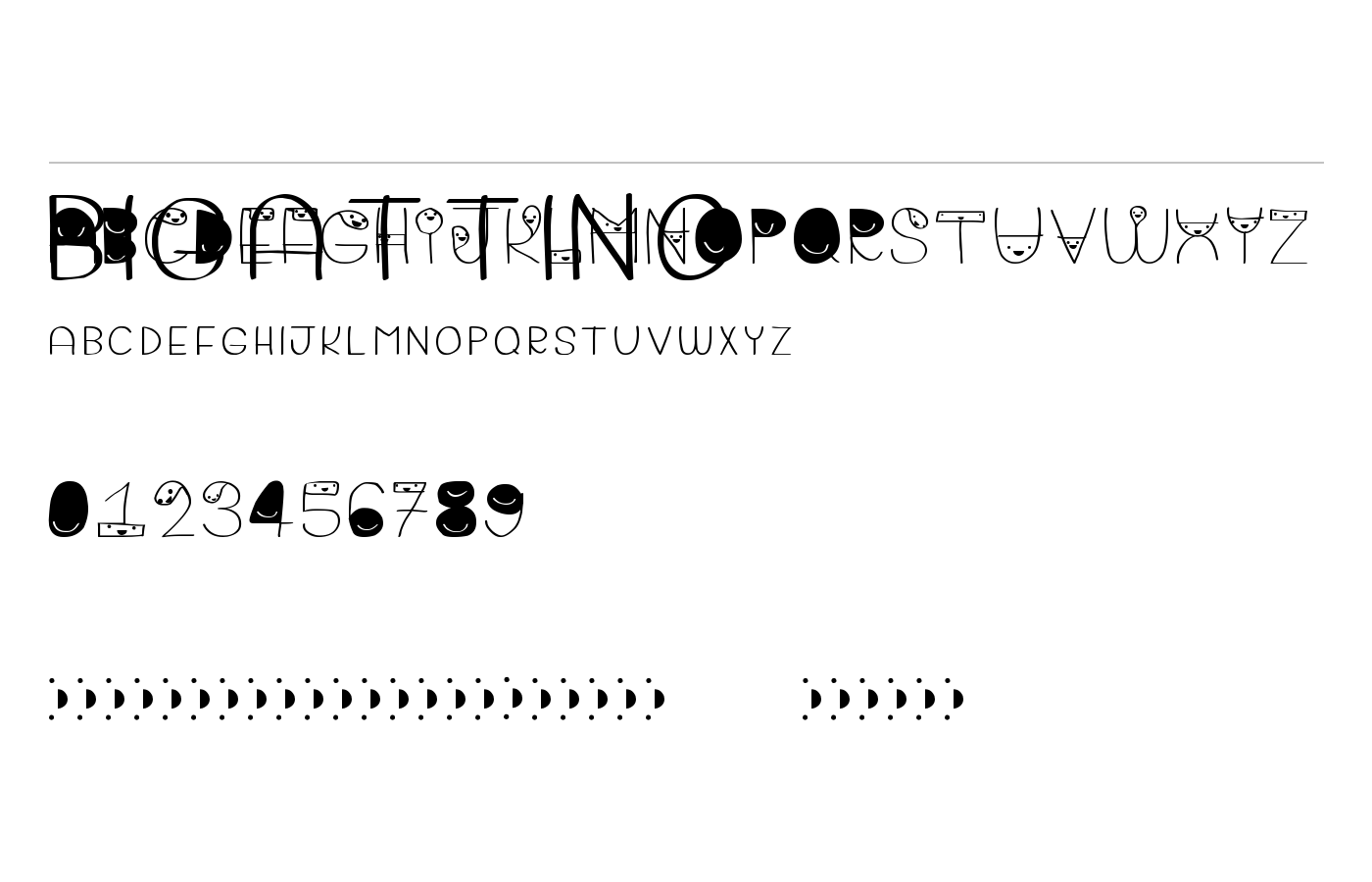
Bigattino is a whimsical, hand-drawn sans serif font with playful, irregular letterforms that combine thin, delicate strokes with quirky, rounded shapes filled with whimsical faces. Its unique, humorous character makes it perfect for creative and fun projects like children's books, playful branding, and casual invitations, where a lighthearted and friendly tone is desired. This font’s irregular style and expressive details give any design a distinctive, artistic flair that stands out while remaining approachable.
bigattino Font